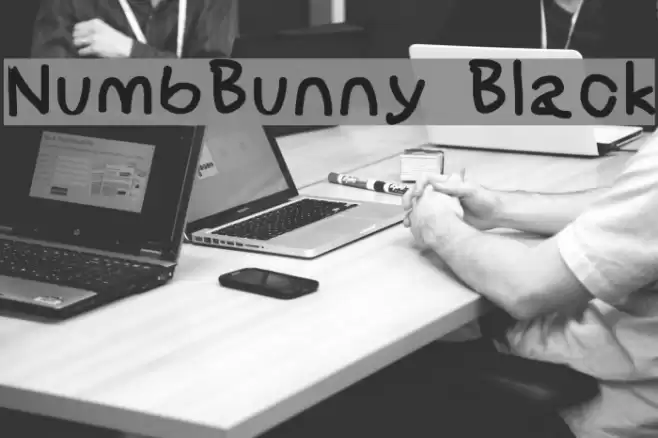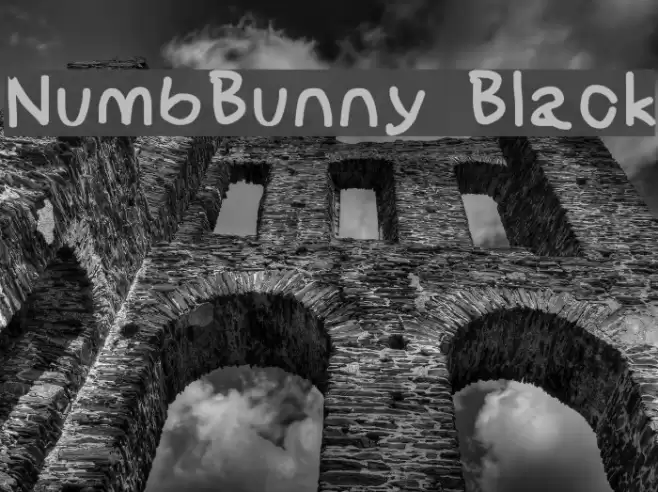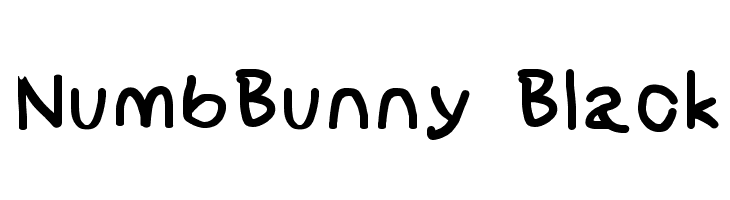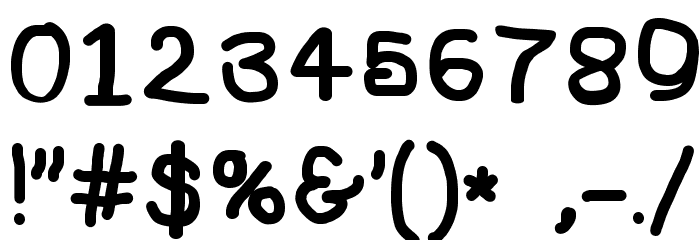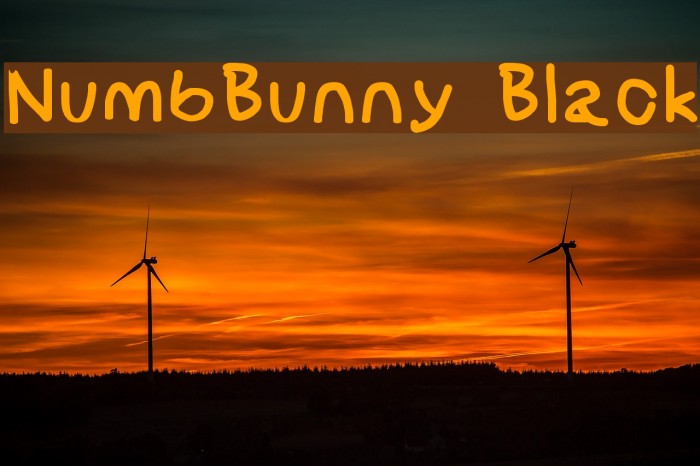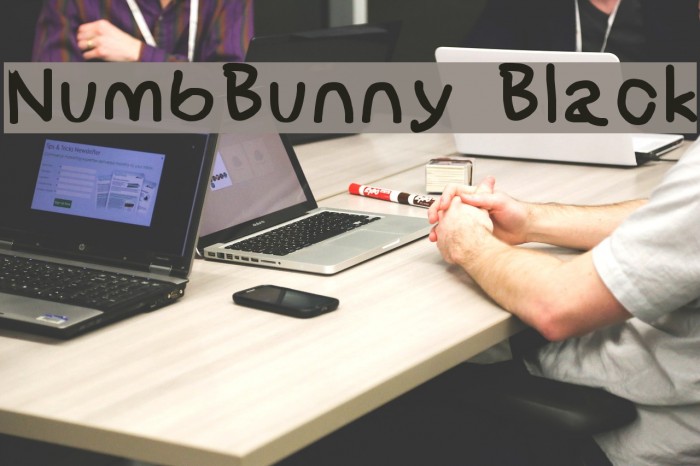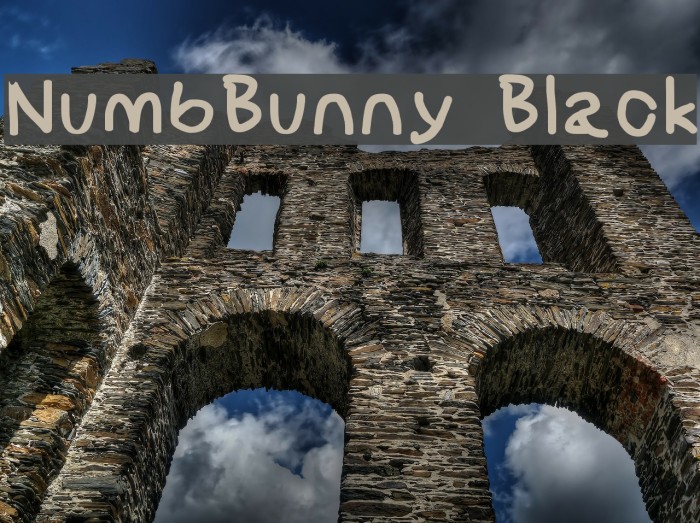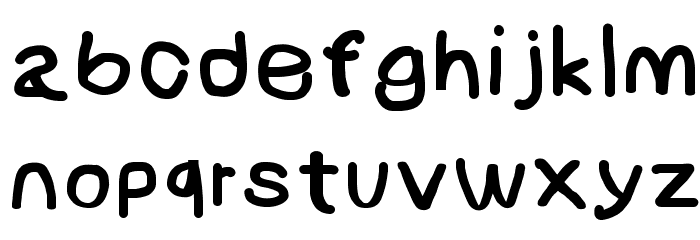
NumbBunny Black Font
NumbBunny Black Description
This playful and quirky font features a handwritten style with a bold and rounded appearance. The characters are slightly irregular, giving it a casual and friendly feel. The uppercase and lowercase letters maintain a consistent style, with smooth curves and a uniform thickness throughout. The numbers and special characters complement the alphabet with the same playful design. This font is ideal for projects that require a fun and informal touch, such as children's books, greeting cards, and playful branding.
A playful, bold handwritten font with rounded characters from Handwritten fonts.
- Proposed Projects: Children's books, greeting cards, playful branding, casual invitations.
- Overall Style: Playful
- Use Case: Headlines, Logos, Informal Text